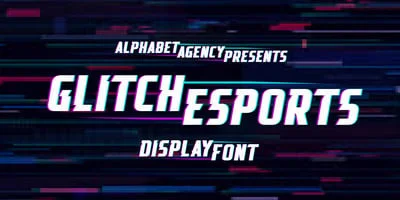
Glitch Esports Font
Glitch Esports Font is perfect for professional gaming team branding, esports tournament graphics, competitive gaming streaming overlays, gaming hardware marketing, cyberpunk game interfaces, and futuristic tech communications. Its digital character makes it ideal for esports organizations, gaming equipment manufacturers, streaming platforms, competitive gaming venues, and any application requiring cutting-edge typography that conveys digital disruption, competitive gaming intensity, and the high-tech aesthetic of professional esports culture.
Glitch Esports Font is exciting because it embodies the digital rebellion and technological intensity of competitive gaming through dynamically distorted letterforms that capture the glitched aesthetics of cyberpunk culture and the adrenaline-fueled world of professional esports. Its fragmented proportions and digital artifacts reflect the cutting-edge technology that powers modern gaming and the disruptive energy of competitive digital sports, making it perfect for brands operating at the forefront of gaming innovation. The font's glitched character transforms communications into digital battlegrounds of technological supremacy.
Glitch Esports Font family includes digitally-distorted weight variations typically featuring Regular, Bold, and Black options with glitched styling that maintains gaming authenticity. The family often incorporates gaming symbols, esports icons, and cyberpunk elements designed for competitive gaming applications, providing designers with comprehensive tools for creating authentic, esports-focused typographic compositions.
When selecting competitive gaming typography solutions, Glitch Esports Font represents an exceptional choice for professional esports projects. This disruptive typeface brings instant gaming credibility to any design, making it invaluable for esports teams, gaming companies, and tournament organizers requiring authentic gaming typography. Whether you're developing esports team branding, creating gaming tournament materials, or designing competitive gaming interfaces, Glitch Esports Font provides the digital intensity and esports authenticity essential for dominating the competitive gaming arena in today's rapidly evolving esports marketplace.